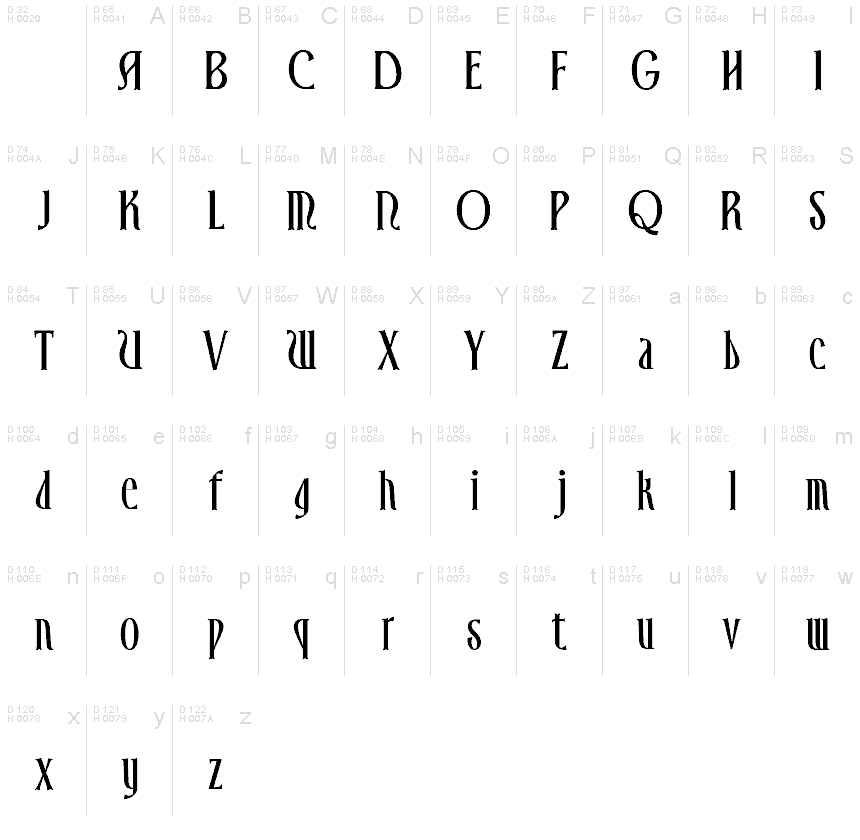
CS Lugenia Regular Demo
CS Lugenia font by Craft Supply Co. is a vintage serif free font. With its condensed form, distinctive flair, and historical influence, it has an elegant style that boasts a sophisticated aesthetic. Gain a new perspective for redesigned websites or eye-catching applications.
Use the font for writing applications, business magazines and blogs; adding stories to travel guides and books; titles and other content typography on brochures; composing quotes to print on stationery items like cards, invitations etc.; product labeling of packaged food items like coffee beans; headlines in any visually communicative medium among others.